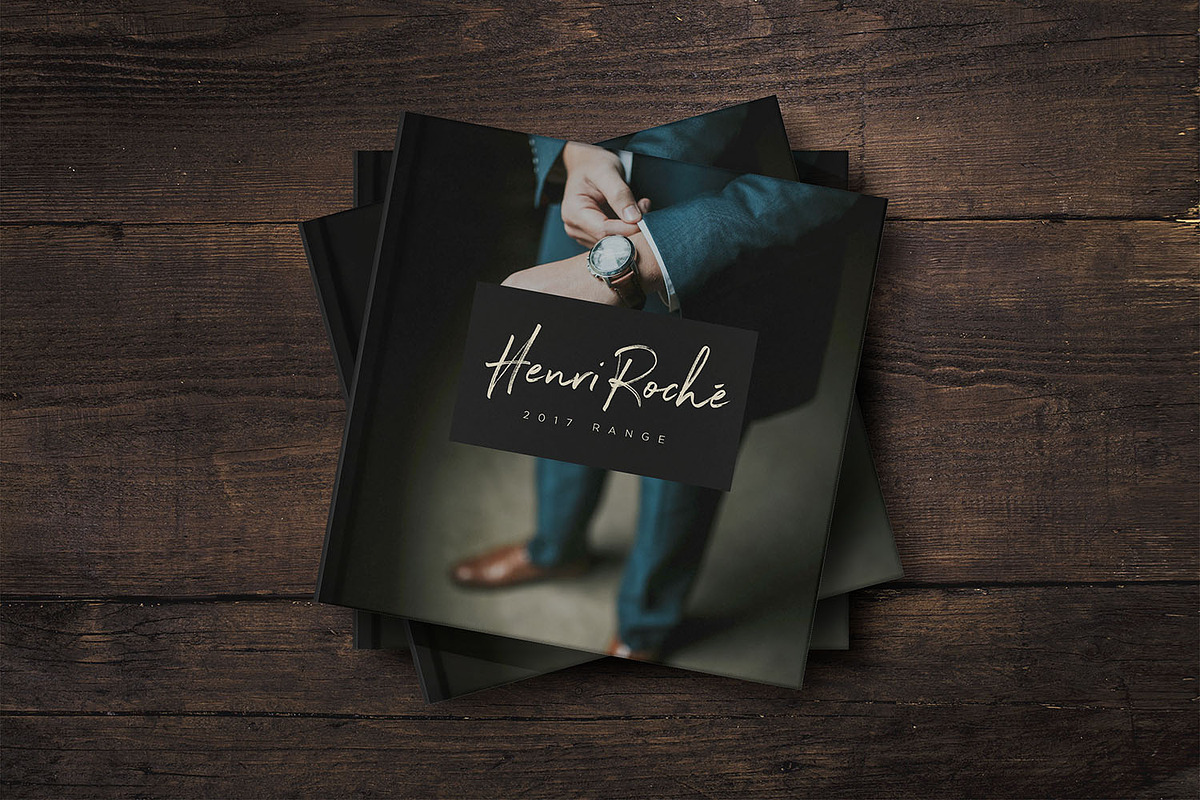
Northwell Font (New Update!)
Northwell Font (New Update!) by Sam Parrett is a font selected for branding, posters, packaging, typography.
- Northwell • A handwritten script font containing upper & lowercase characters, numerals and a large range of punctuation.
- Northwell Alt • This is a second version of Northwell, with a completely new set of both lower and uppercase characters.
- Ligatures • Are also available for several lowercase characters (double-letters which flow more naturally).
Northwell Font (New Update!) by Sam Parrett fits naturally into Branding, posters, packaging, typography.